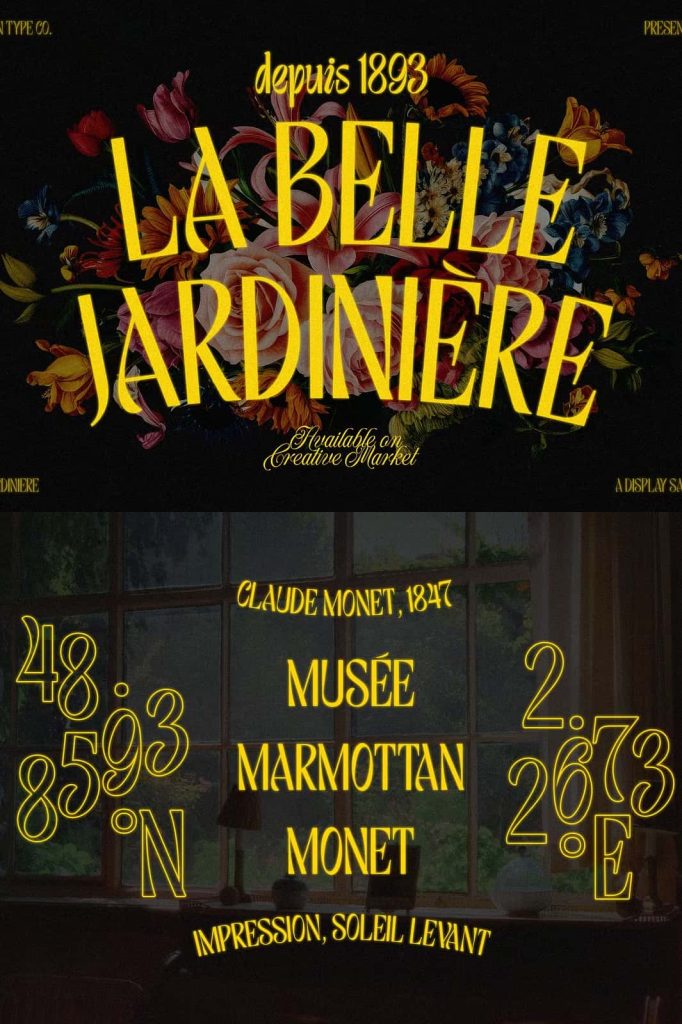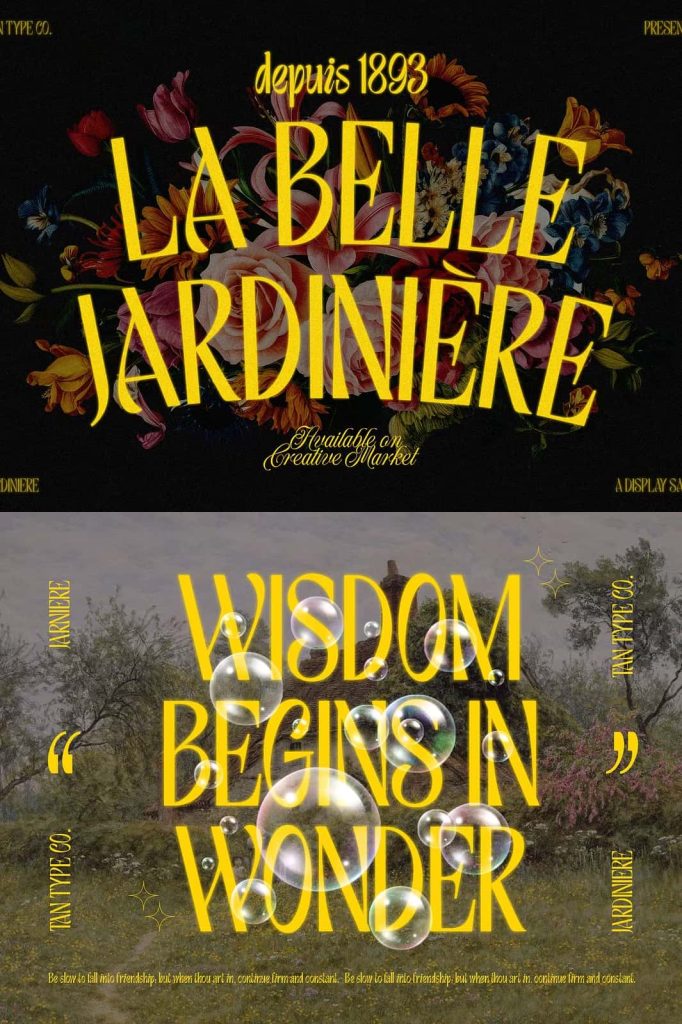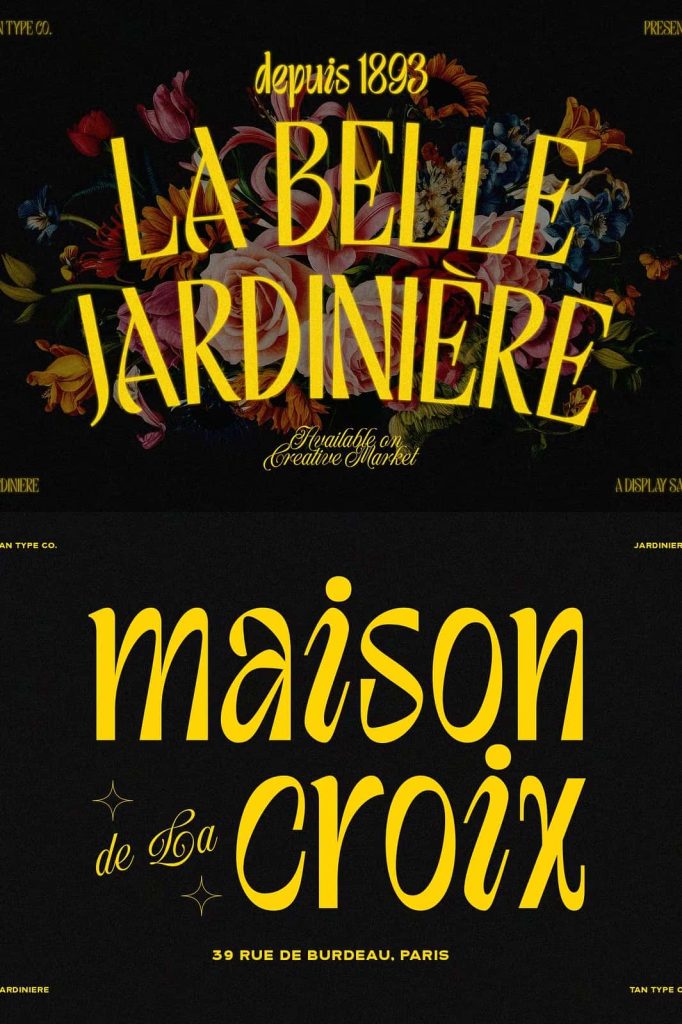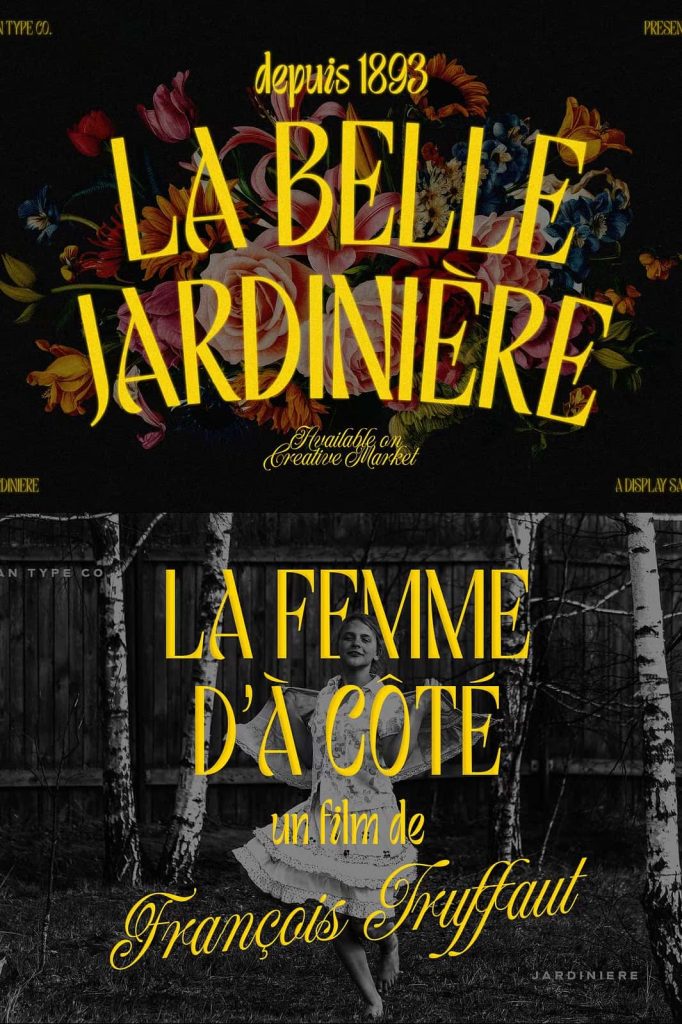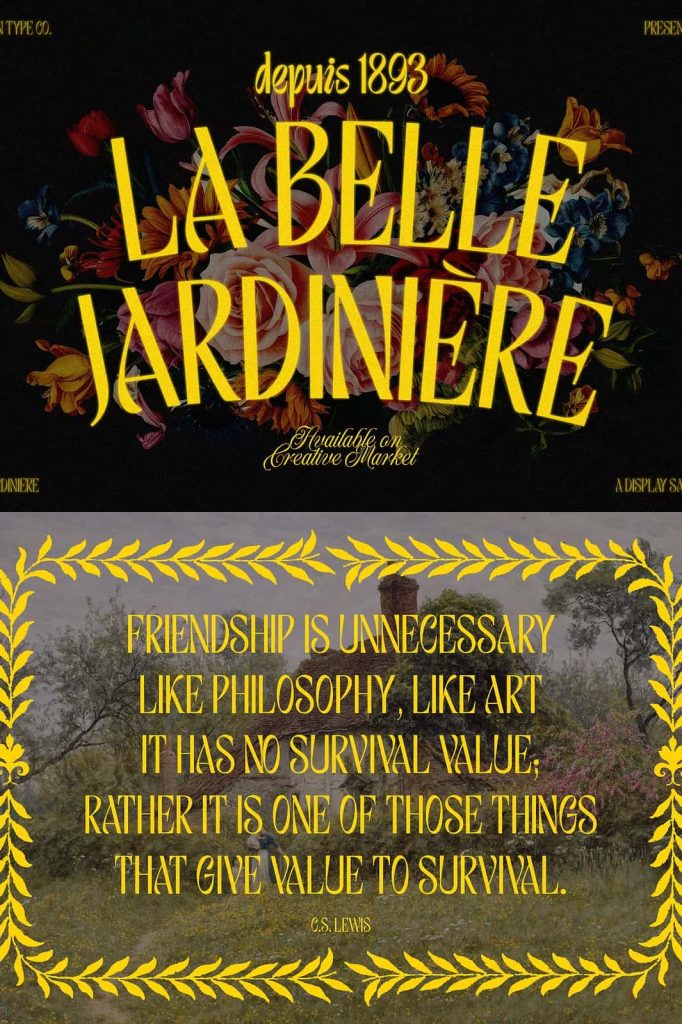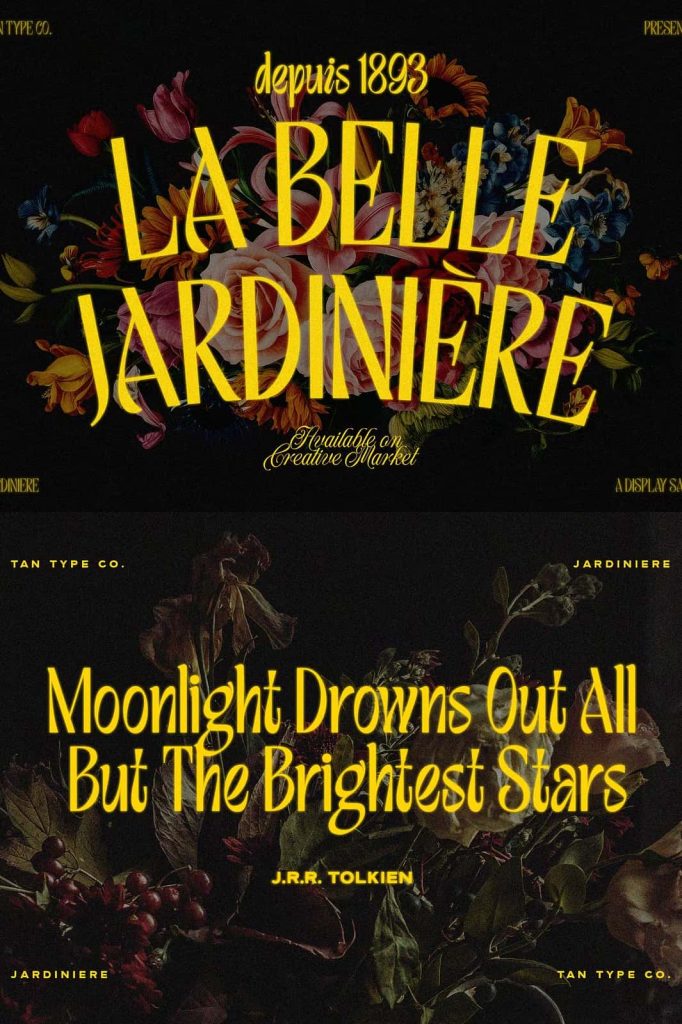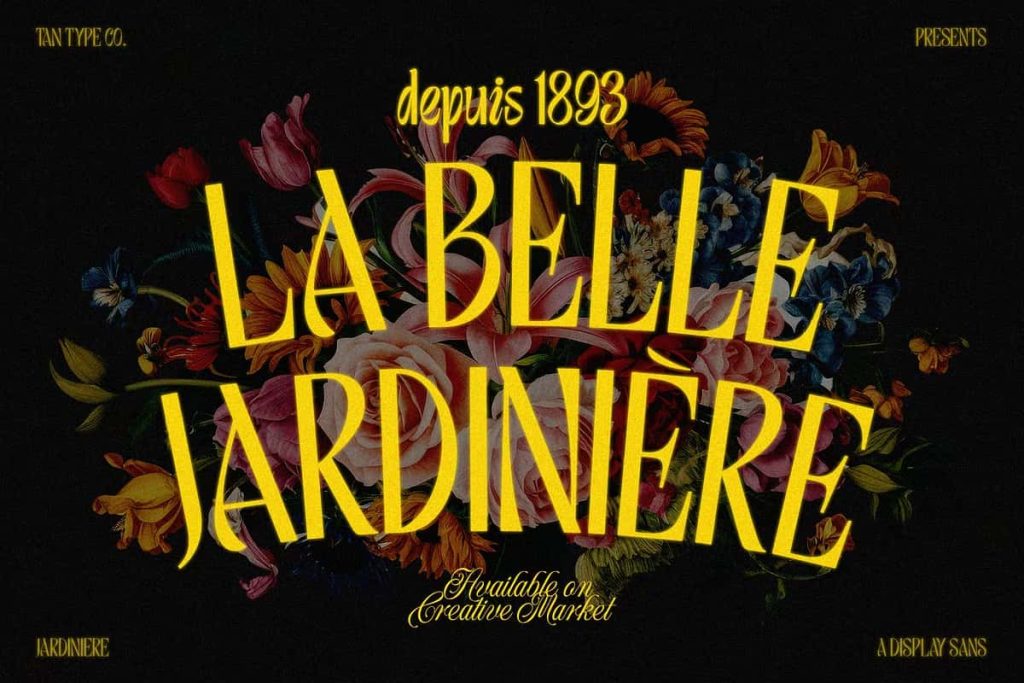
TAN – JARDINIERE
Tan Type Company presents JARDINIERE, a mid centrury inspired sans serif. It is chic and stylish with a quirky flai, Our fonts are supported by most design software, please make sure it can read the OpenType fonts to be able to access all ligatures. Please be informed that while our font works well in Canva, but Canva itself doesn’t support advance opentype features such as special characters.